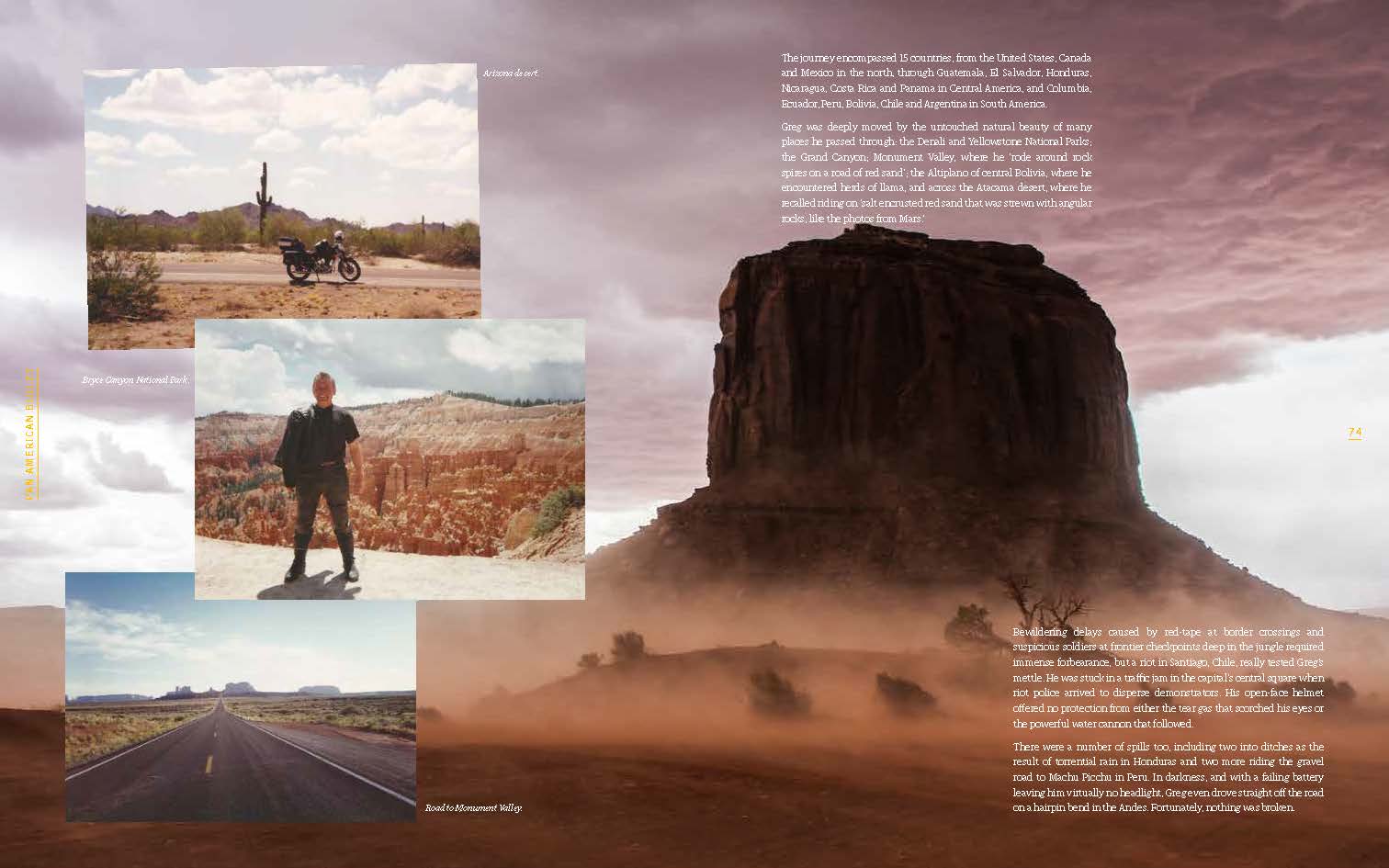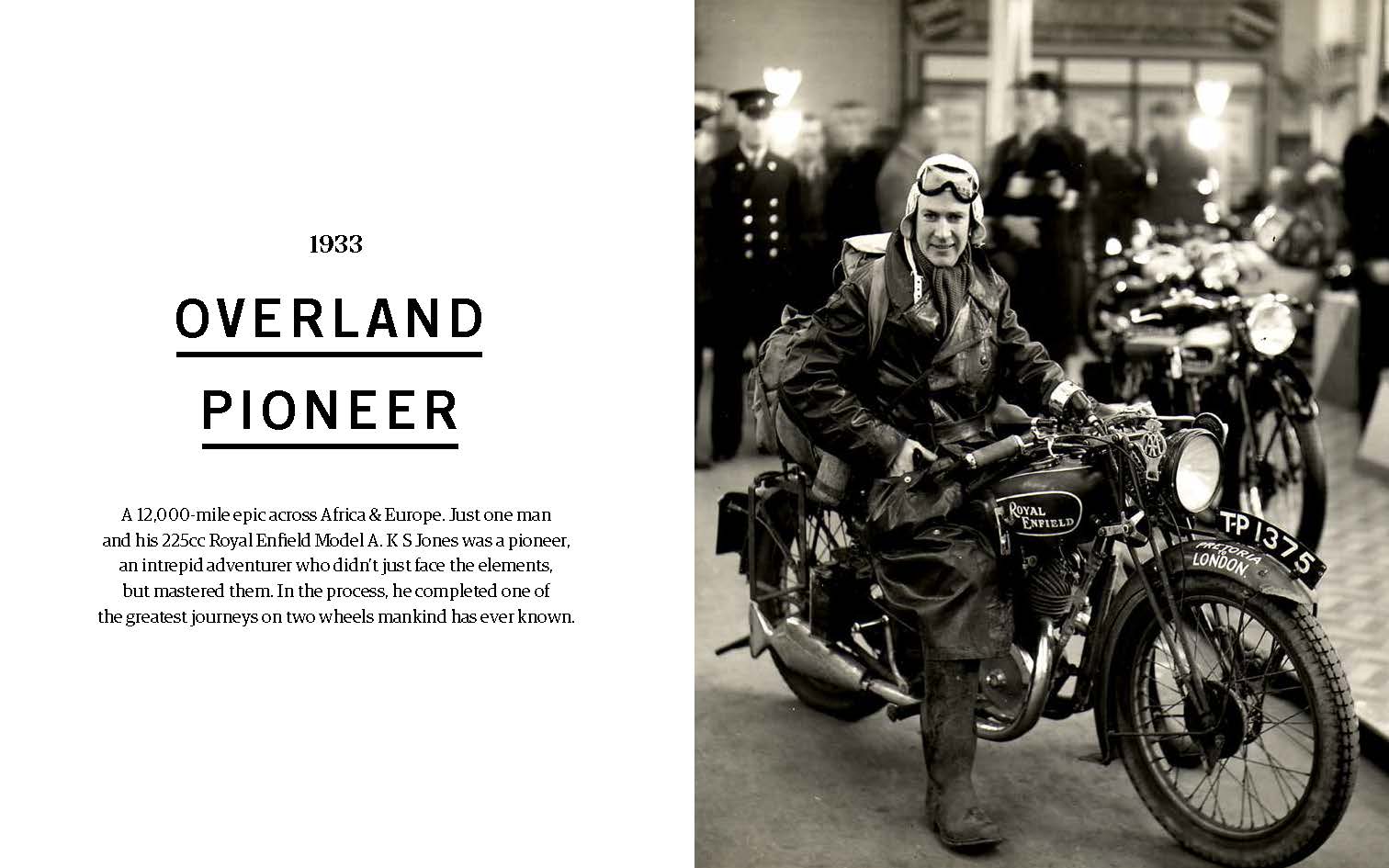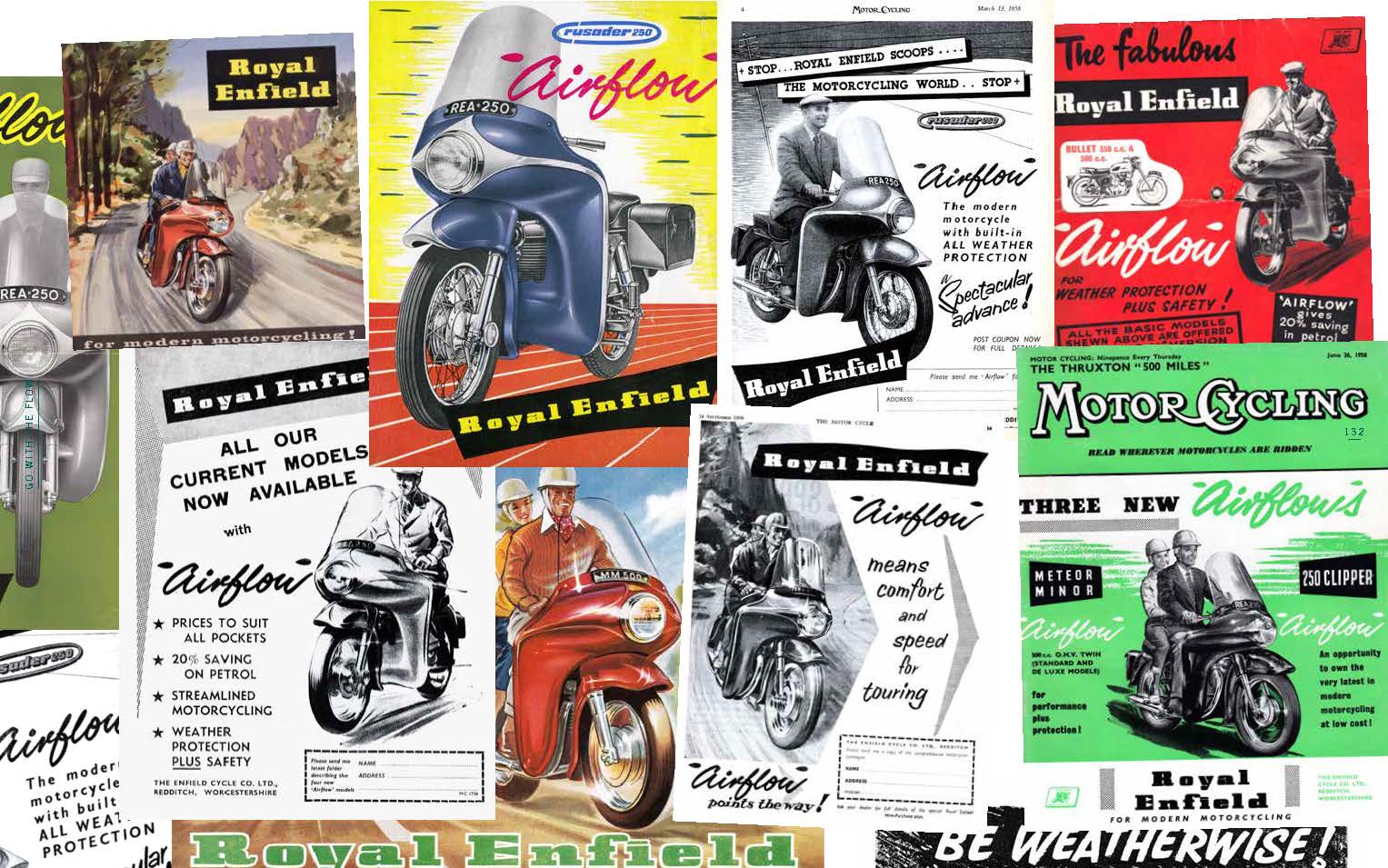
Royal Enfield collaborated with The Brewhouse to design the campaign commemorating their 120 year anniversary, titled ‘120 Years of Pure Motorcycling’.
As a key member of the team, my responsibilities included ideating and developing the visual language that was to be leveraged across diverse media channels including social media, website, books and films. This collaborative effort resulted in a distinctive campaign that celebrated Royal Enfield's heritage and its journey so far. I completed this project during my previous employment with The Brewhouse, New Delhi.
As part of the campaign we worked on a set of 20 films highlighting the 120 stories of Royal Enfield’s history. I was tasked to art direct the film about the story of 4 riders who took the challenge of riding the brand new 250 Continental GT motorcycle from Britain’s top (in Scotland) to Britain’s tip. See the finished film below:
We designed a box set of four books as part of the campaign that contained 120 stories of Royal Enfield’s history. These books were divided based on themes:
1. Racing Ahead: About racings stories.
2. Beat Must Go On: About the challenges the company faced
3. Made Like a Gun: About the technology and innovations behind the motorcycles.
4. Know No Boundaries: About the incredible adventures people have been on with the motorcycles
1. Racing Ahead: About racings stories.
2. Beat Must Go On: About the challenges the company faced
3. Made Like a Gun: About the technology and innovations behind the motorcycles.
4. Know No Boundaries: About the incredible adventures people have been on with the motorcycles
Custom type for 1920 – 2021
As part of the project, we designed custom type for the years 1920 and 2021 based on the ‘120’ unit designed by Royal Enfield.